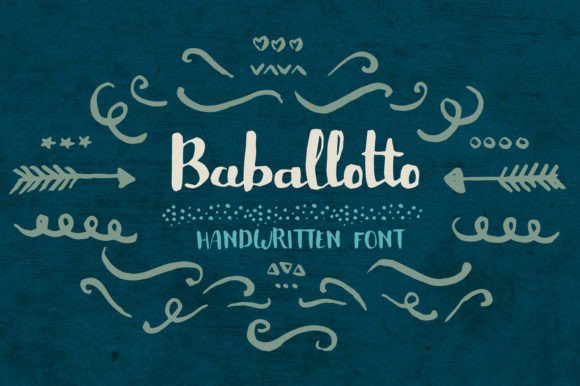
The Magic of Baballotto Font: Bringing Your DIY Projects to Life
Have you ever been in the middle of a design project, pouring your heart and soul into it, only to realize that something’s missing? You’re not quite sure what it is, but you know it’s not quite right. I recall a project where I was designing a wedding invitation, and it felt stiff and formal. I tried font after font, but nothing seemed to capture the warmth and whimsy I was going for. That’s when I stumbled upon the Baballotto font, and it was like a breath of fresh air!
A Personal Review: What I Love About Baballotto Font
As soon as I started using Baballotto, I knew I had found the perfect fit. Here are a few things that I absolutely love about this font:
- ✨ Inky Brush Script: The Baballotto font has a beautiful, hand-painted feel to it. The inky brush script gives it a organic, homemade look that’s perfect for DIY projects.
- ✅ Heavy Downstrokes and Skinny Loops: The contrast between the heavy downstrokes and skinny loops and upstrokes adds a level of elegance and sophistication to the font.
- 🎨 Watercolor Brush Feel: The font was made with a watercolor brush, which gives it a unique texture and feel.
While I absolutely adore the Baballotto font, there are a few quirks to be aware of:
- 🤔 Limited Use in Small Sizes: Due to its intricate details and brush script style, Baballotto can get a bit lost in smaller font sizes. It’s best used in larger sizes (24pt and above) to really showcase its beauty.
- ⚠️ Not Suitable for Long Blocks of Text: While Baballotto is stunning for headings and titles, it’s not the most readable font for long blocks of text. Stick to using it for shorter phrases and titles.
The Story Behind Baballotto Font
While I couldn’t find much information on the origins of Baballotto, I like to imagine that it was created by a talented artist who loves watercolor and lettering. Perhaps they were inspired by the soft, blended look of watercolor paints and wanted to capture that magic in a font. Whatever the story, Baballotto is a true gem that brings a touch of whimsy and elegance to any design project.
| Author | Silvia Porcu |
Q: Is Baballotto suitable for children’s designs?
A: Absolutely! Baballotto’s playful, whimsical feel makes it perfect for children’s designs, such as kid-friendly posters, invitations, and activity sheets.
Q: Can I use Baballotto for my blog or social media posts?
A: Yes, Baballotto is a great font for adding a personal touch to your blog or social media posts. Use it for headings, titles, or even short paragraphs to add some visual interest.